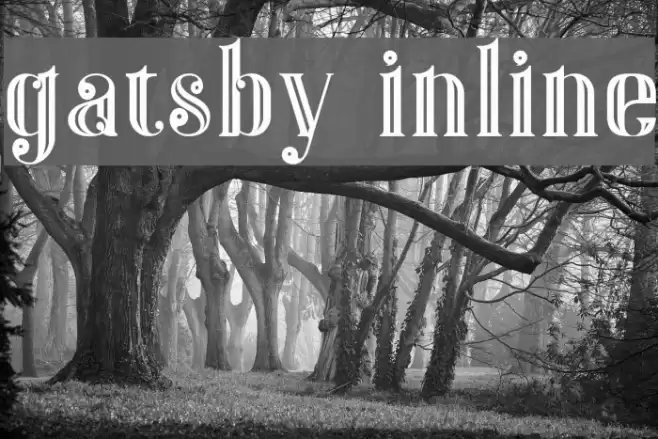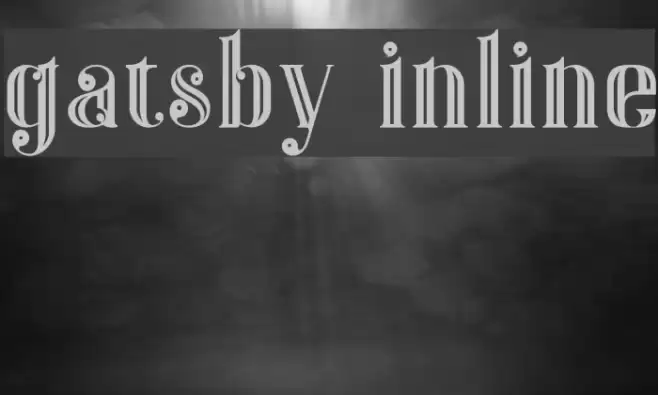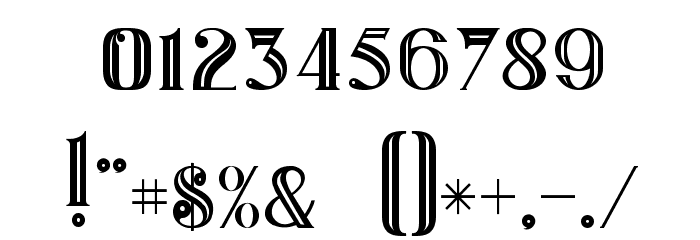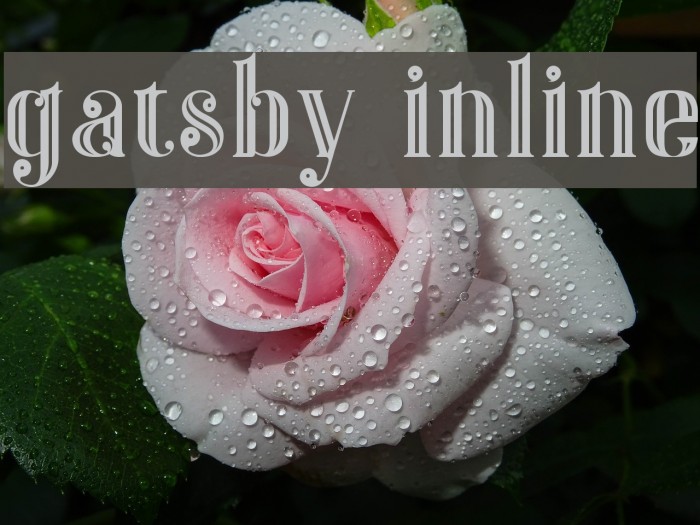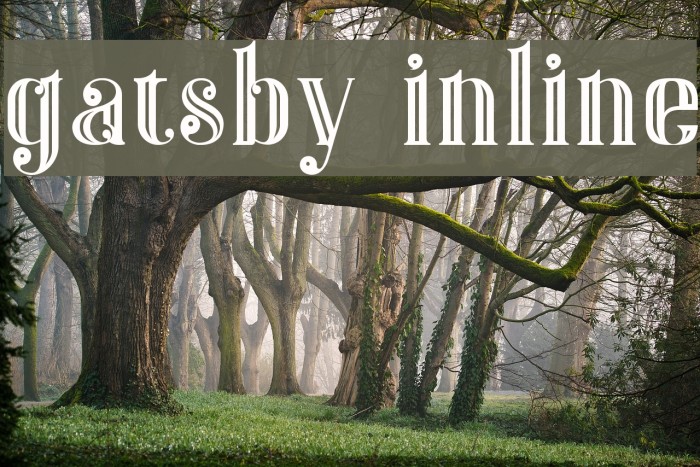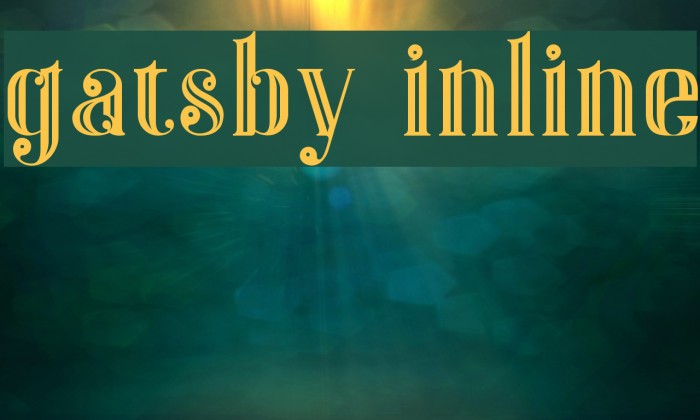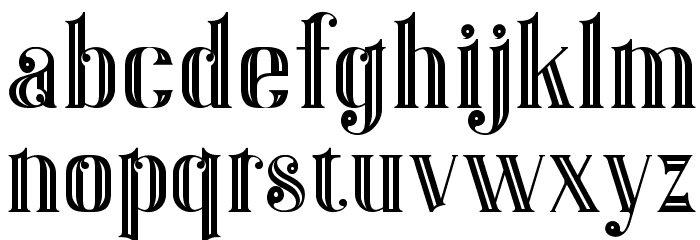
Gatsby Inline Font
Gatsby Inline Description
This font exudes a vintage charm with its bold, decorative style. The characters are designed with an inline feature, creating a striking contrast between the thick outer strokes and the thin inner lines. The serifs are prominent and add a touch of elegance, reminiscent of the Art Deco era. The overall appearance is both sophisticated and playful, making it suitable for projects that require a touch of nostalgia or a classic aesthetic. The numbers and special characters maintain the same decorative style, ensuring consistency across all text elements.
A bold, decorative font with vintage Art Deco influences and inline detailing from Uncategorized fonts.
- Font: Gatsby Inline
- Proposed Projects: Ideal for vintage-themed posters, book covers, branding for luxury products, and event invitations.
- Overall Style: Vintage